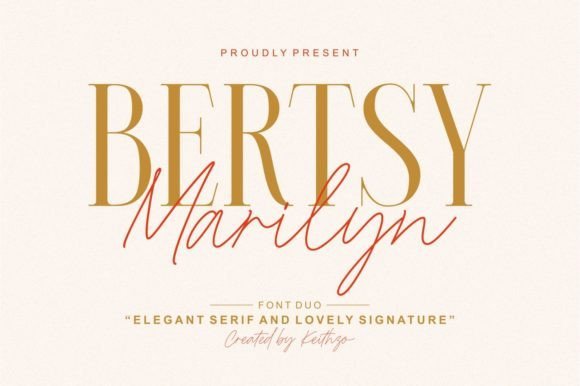
Have you ever stared at a blank page, desperately searching for the perfect font to bring your design to life? I know I have. Sometimes, it’s the little things that make all the difference – a delicate curve, a whimsical detail, or a dash of elegance. That’s exactly what you’ll find in the enchanting Bertsy Marilyn Font.
Designed to add a touch of playfulness and sophistication to your projects, Bertsy Marilyn Font is a must-have for any designer looking to elevate their work. With its PUA encoding, you’ll have access to all the amazing glyphs and ligatures, allowing you to unleash your creativity and take your designs to the next level.
Bertsy Marilyn Font Key Features
- Unique Characteristics: A modern, elegant script font with a touch of sophistication and femininity, perfect for wedding invitations, greeting cards, and other feminine designs.
- Language Support: Multilingual support, including Latin, Cyrillic, and Greek alphabets
- Font Styles: Regular and Bold
Bertsy Marilyn Font Review
Bertsy Marilyn Font, a playful and elegant script font, has caught my attention lately. Let’s dive into the details and see what makes it tick.
- Unique character design: Each letter is carefully crafted to resemble the style of Marilyn Monroe, making it perfect for projects that need a touch of Hollywood glamour.
- High-quality glyphs: The font includes a wide range of glyphs, including ligatures, swashes, and alternates, which adds to its charm.
- Versatile: Bertsy Marilyn Font is suitable for various projects, from wedding invitations to fashion branding.
- Limited font sizes: Some users might find the font size limitations restrictive, as it’s designed for smaller text sizes.
- Not ideal for body text: Due to its ornate design, Bertsy Marilyn Font might not be the best choice for large blocks of text.
Bertsy Marilyn Font is a beautiful and sophisticated script font that shines in the right context. While it has its limitations, it’s perfect for projects that require a touch of elegance and sophistication. If you’re looking for a font to make a statement, Bertsy Marilyn Font is definitely worth considering.
Tips for Getting the Most Out of Bertsy Marilyn Font
For optimal results, use the Bertsy Marilyn Font for titles, headings, and emphasis. You can also use it for body text to add a touch of elegance and sophistication.
The Bertsy Marilyn Font is ideal for:
- Special occasion cards and gifts
- Formal event invitations and programs
- High-end branding and marketing materials